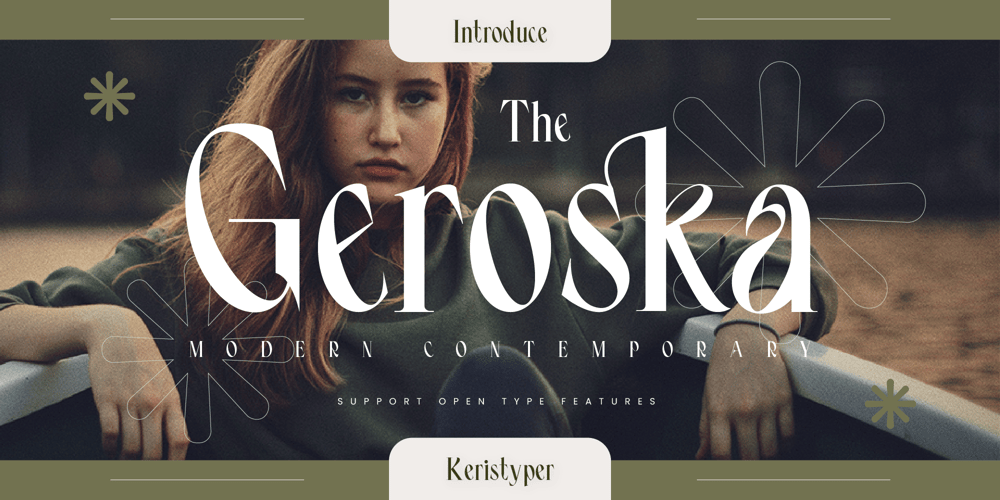
Geroska Font Family was designed by Tezar Tantular and published by Keristyper Studio. Geroska contains 1 styles and family package options. Geroska Is a serif contemporary inspired by combining Mid-Century, Modern & Aesthetics styles. This font is good for logo design, Social media, Movie Titles, Books Titles, short text even long text letters, and good for your secondary text font with sans or serif.**Featured:*** Standard Uppercase & Lowercase* Numeral & Punctuation* Multilingual : ä ö ü Ä Ö Ü ß ¿ ¡* Alternate & Ligature* PUA encodedWe recommend programs that support the OpenType feature and the Glyphs panel such as Adobe applications or Corel Draw. so you can use all the variations of the glyphs.Hope you enjoy our fonts!